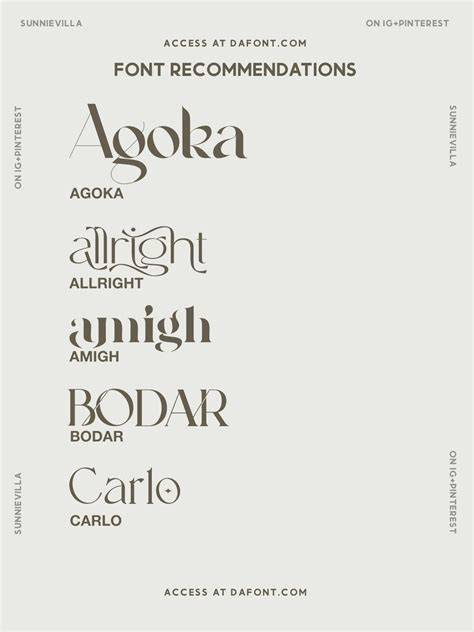
What You Need To Know About Sarif Fonts
What Are Sarif Fonts?
Sarif fonts are a new type of typeface that is becoming increasingly popular. Sarif fonts are designed to look like handwriting, with the added bonus of being easier to read. They have gained popularity due to their unique look and for the fact that they provide a more natural experience for the reader. Sarif fonts are available in a variety of styles, from modern to traditional, depending on your preferences.
Sarif fonts are also known for their versatility. They can be used for both web and print, and can be used in a variety of sizes. They are also very easy to install and are compatible with most operating systems. Sarif fonts are often used for logos, titles, and other text elements, as they provide a unique look and feel.
What Makes Sarif Fonts Unique?
Sarif fonts are different from traditional fonts because they are designed to be easier to read. They are designed to be more legible, making them perfect for use in web and print. Sarif fonts also have a unique look and feel that make them stand out. They are designed to look like the natural handwriting of a person, and this makes them look more inviting and friendly.
Sarif fonts are also designed to be more versatile than traditional fonts. They come in a variety of sizes, from small to large, and can be used for both web and print. This makes them an ideal choice for any type of project.
How To Use Sarif Fonts
Advantages of Sarif Fonts
There are many advantages to using Sarif fonts. One of the main advantages is that they are easy to read. This makes them perfect for web and print projects. They also have a unique look and feel that makes them stand out from traditional fonts. They can be used for logos, titles, and other text elements, as they provide a unique look and feel.
Sarif fonts are also very versatile. They come in a variety of sizes, from small to large, and can be used for both web and print. They are also easy to install and are compatible with most operating systems. This makes them an ideal choice for any type of project.
Sarif fonts are a great choice for any type of project. They are designed to look like handwriting, with the added bonus of being easier to read. They are also very versatile and can be used for both web and print. They are also easy to install and are compatible with most operating systems. This makes them an ideal choice for any type of project.